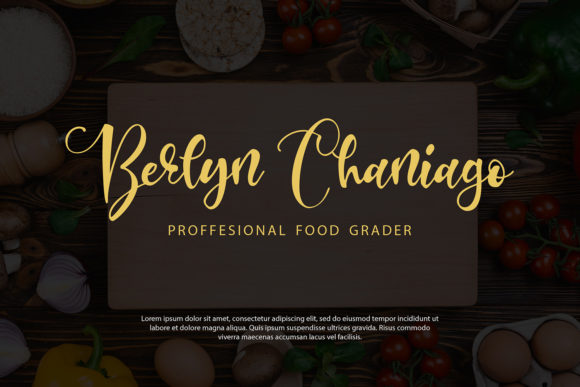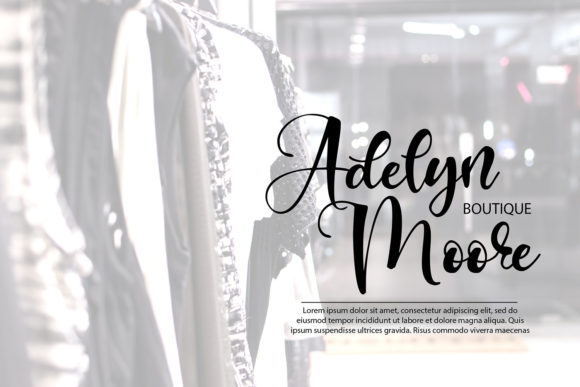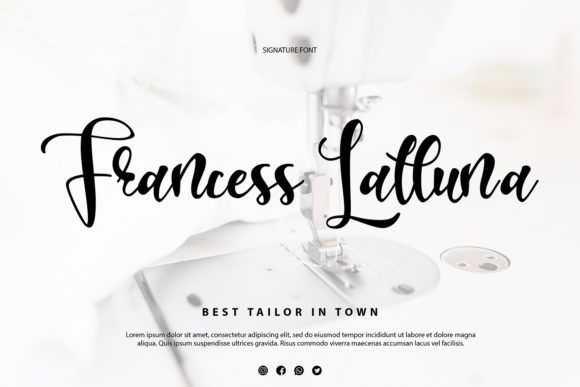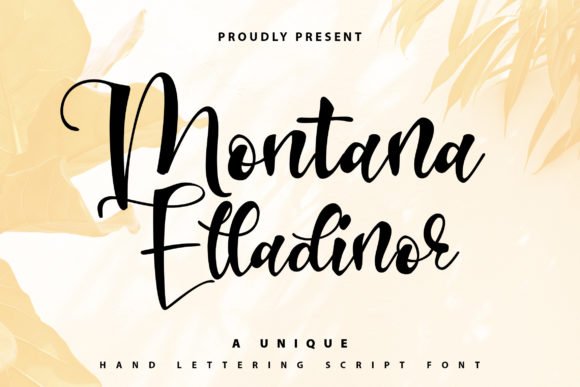
Introduction to Montana Elladinor Font
Montana Elladinor is a chic, refined script font that emanates sophistication and elegance.
Its stylish alternates and ligatures make this font the perfect match for any project .